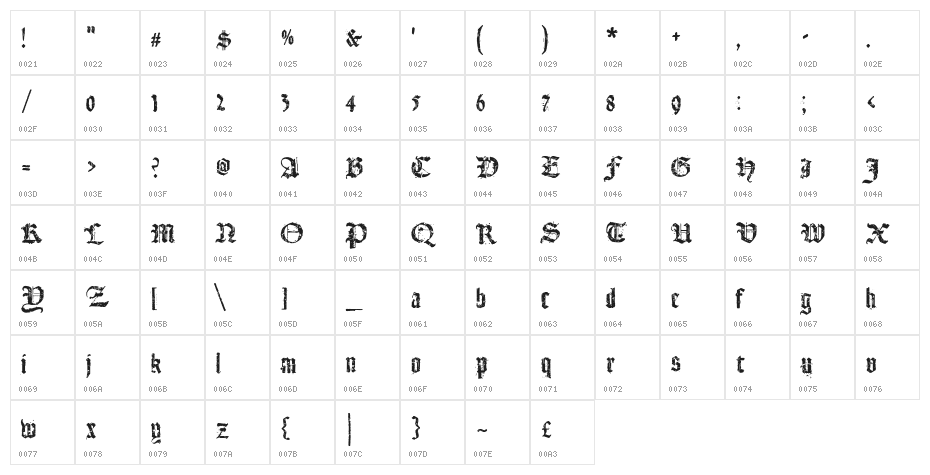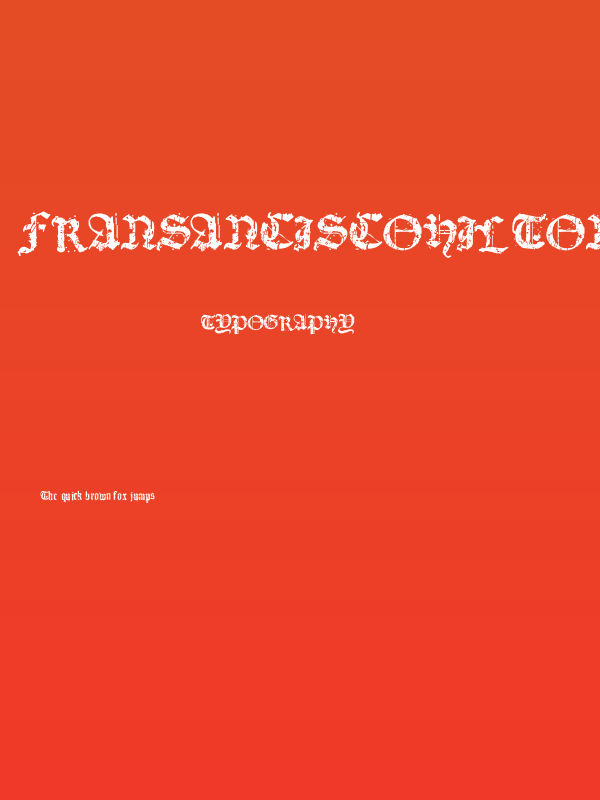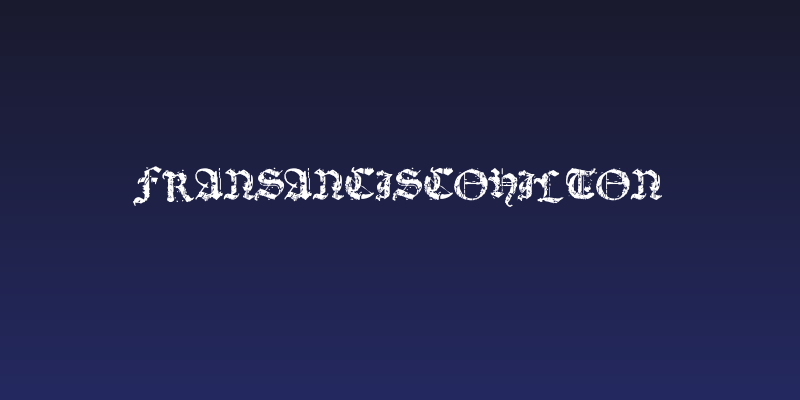
FranSanciscoHilton Font
FranSanciscoHilton Description
This font features a distressed, grunge style with a blackletter influence, characterized by its bold and dramatic strokes. The uppercase and lowercase letters maintain a consistent gothic aesthetic, with sharp angles and intricate details that give it a vintage yet edgy appearance. The numerals and special characters follow the same design principles, ensuring a cohesive look across all text elements. The font's texture adds a rugged, worn effect, making it ideal for projects that require a historical or rebellious vibe.
| Overall Style | Vintage, Decorative |
| Proposed Projects | Ideal for album covers, posters, branding for edgy or vintage-themed products, and any design requiring a bold, historical touch. |